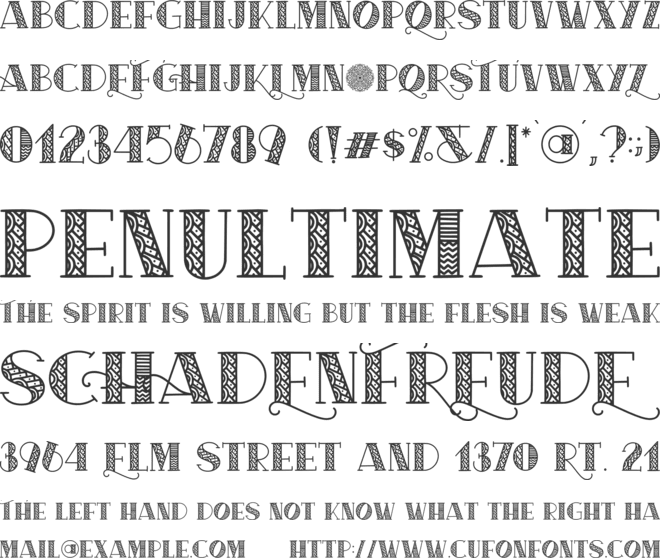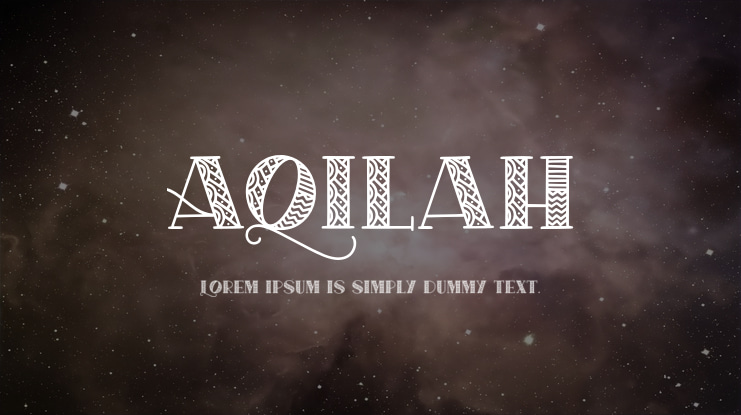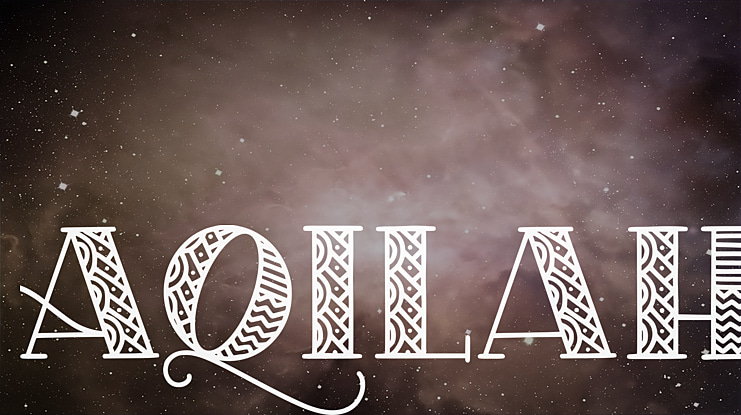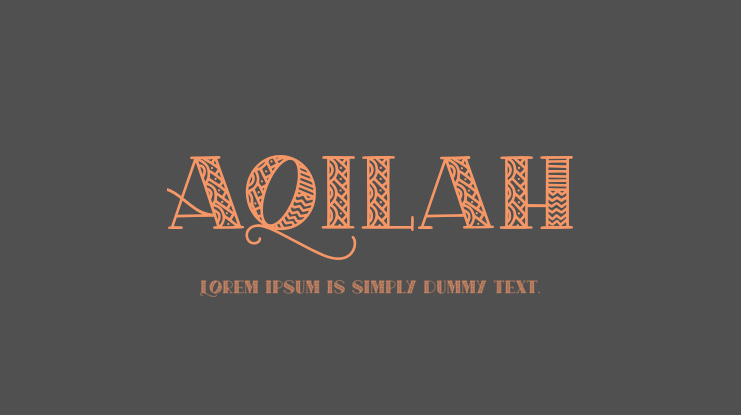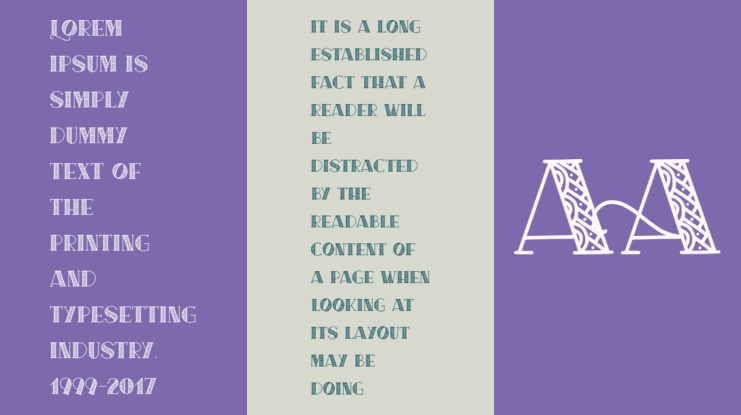
Aqilah Font
AQILAH - the cultural serif -
AQILAH is a very unique serif font with a touch of cultural ornament. It is great for branding, packaging, logos, cards, T-shirt design, tote bag design, cutting, vinyl, silhouette, embroidery, and another of your project designs. This fonts license is Free For Personal Use Only with limited feature.